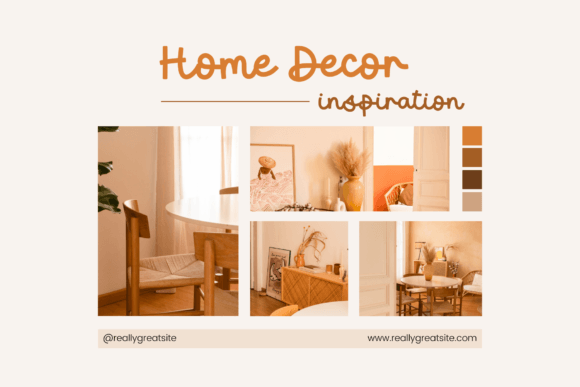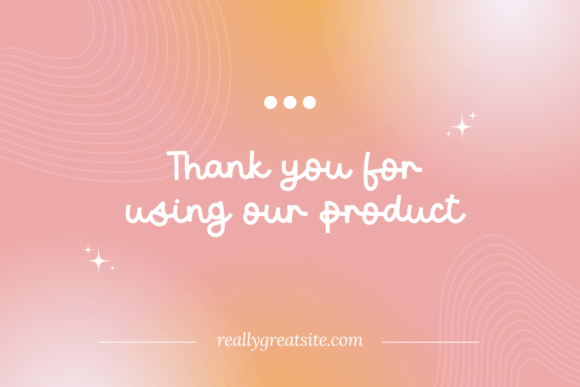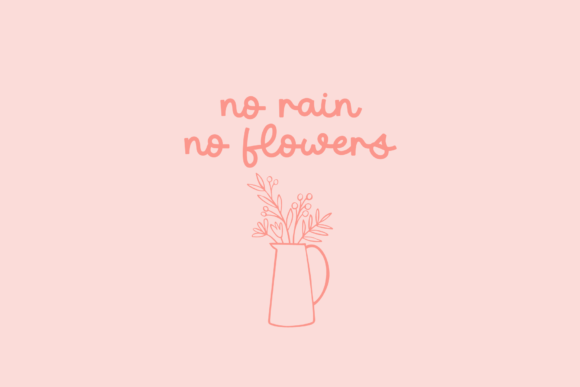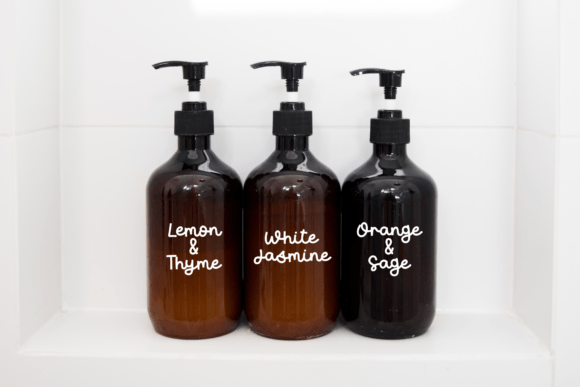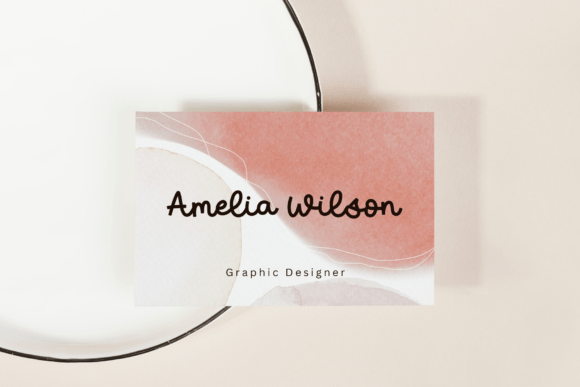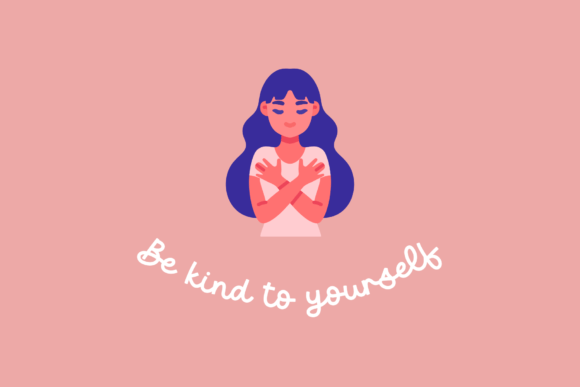
Introduction to Maurits Font
This handwritten font is perfect for creative projects that require a handwritten look.
Use it for your digital planner, stickers, quotes, greeting cards, tea towels, apparel, pillows, mugs, toys, posters, baby clothing, picture books, and so much more .
Key Features of Maurits Font
Why Choose Maurits Font?
Maurits Font offers exceptional quality and versatility, making it a valuable addition to your design toolkit. Whether you’re creating for personal projects or commercial use, Maurits Font delivers professional results.